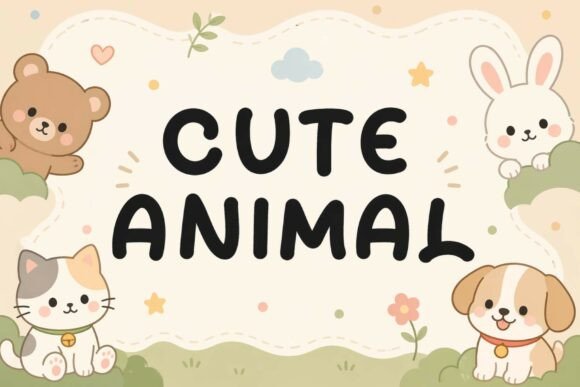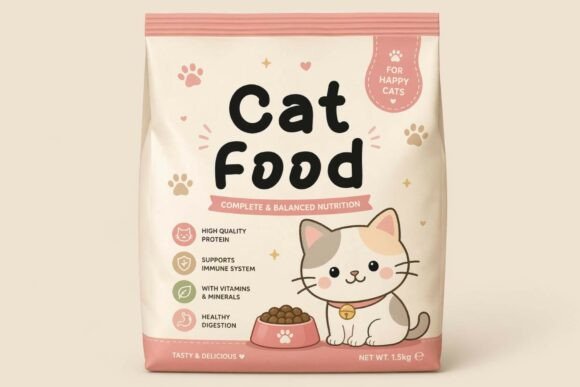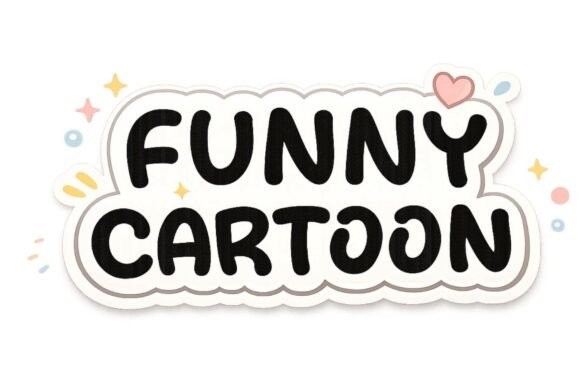
Introduction to Kitty Meow Font
Have you ever been working on a creative project, pouring your heart and soul into it, only to realize that it’s missing that one special element that brings it all together? For designers, finding the perfect font can be the difference between a mediocre project and a truly outstanding one. That’s where the Kitty Meow Font comes in – a high-quality, playful display font that’s sure to add a touch of whimsy to any design.
With its adorable cat-inspired design, the Kitty Meow Font is a design resource that’s hard to resist. From posters and logos to book covers and film titles, this font is perfect for any creative project that requires a lighthearted and fun tone. And the best part? The Kitty Meow Font is available for free download, complete with transparent background options for easy integration into your designs.
Key Features of Kitty Meow Font
- Unique, hand-drawn design with a playful and whimsical feel, perfect for a creative project.
Honest Review: Kitty Meow Font
I recently had the chance to work with the Kitty Meow Font, and I must say it’s a delightful addition to any creative project. This font is perfect for designers who want to add a touch of whimsy and playfulness to their designs.
- ✨ The font is incredibly high quality, with crisp and clear lines that make it perfect for both digital and print designs.
- ✨ The transparent background feature allows for seamless integration with other design elements, giving you complete control over the look and feel of your project.
- ⚠️ The font is limited to a specific style and aesthetic, which may not be suitable for every project or client.
- ⚠️ Some users may find the font to be a bit too playful or cutesy for more serious or formal designs.
Overall, I was impressed with the Kitty Meow Font’s performance and versatility. It’s a solid design resource that’s perfect for designers looking to add a bit of fun and personality to their projects. Whether you’re working on a children’s book, a social media campaign, or a product design, this font is sure to bring a smile to your face.
Tips for Getting the Most Out of the Kitty Meow Font
For the best results, use the Kitty Meow Font on a transparent background to create a clean and professional look. Experiment with different font sizes, colors, and combinations to add a touch of whimsy to your design.
Common Use Cases for the Kitty Meow Font
The Kitty Meow Font is perfect for creating playful and eye-catching designs, such as:
- Children’s book illustrations
- Party invitations and decorations
- Food and drink labels